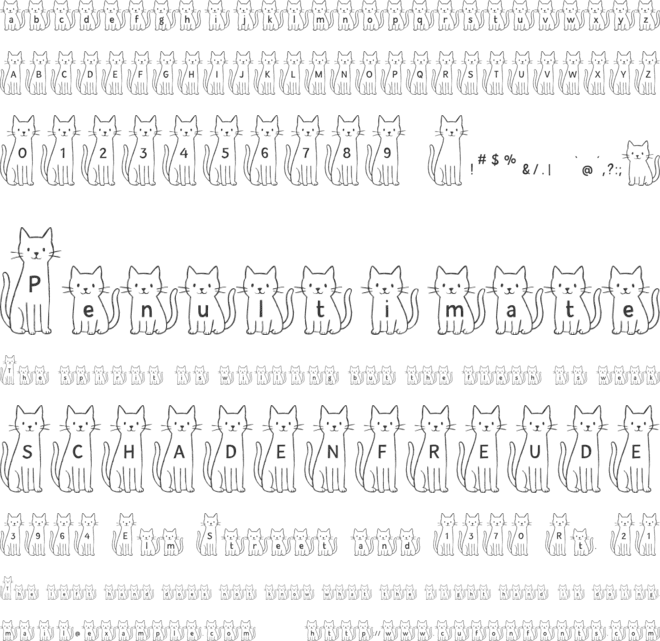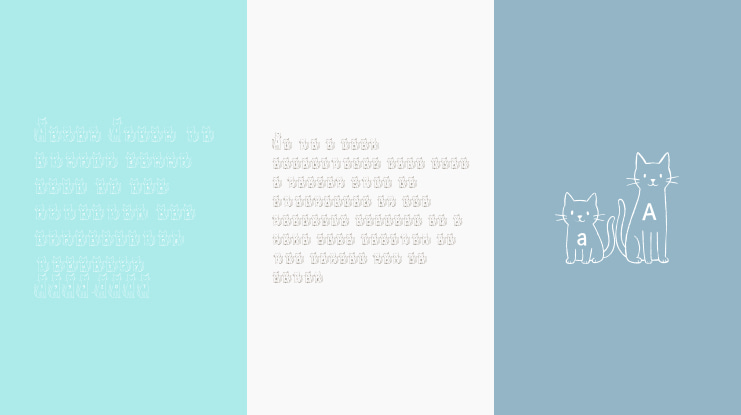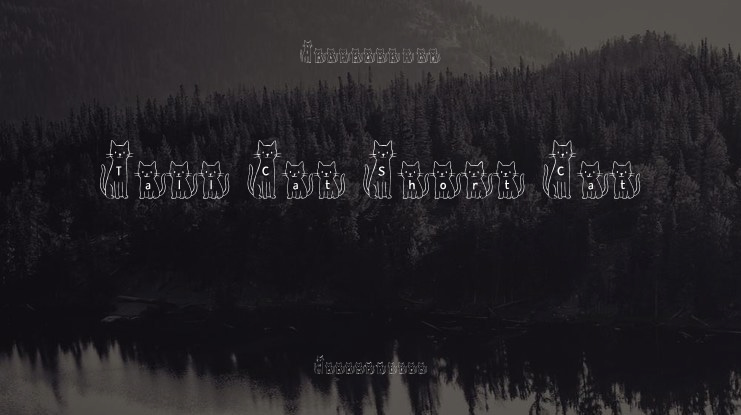
Tall Cat Short Cat Font
Tall Cat Short Cat typeface is a playful and imaginative decorative font that brings letters to life through charming feline illustrations.